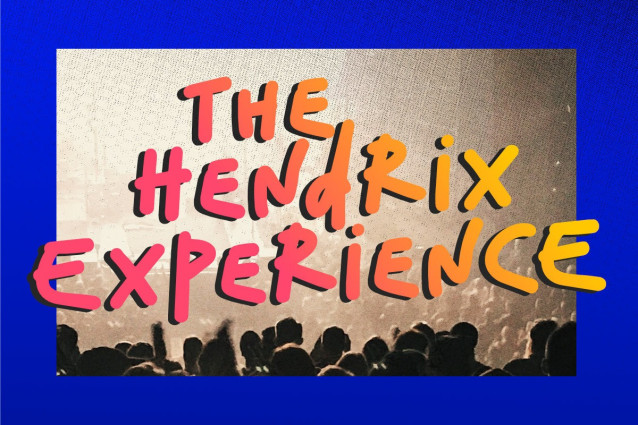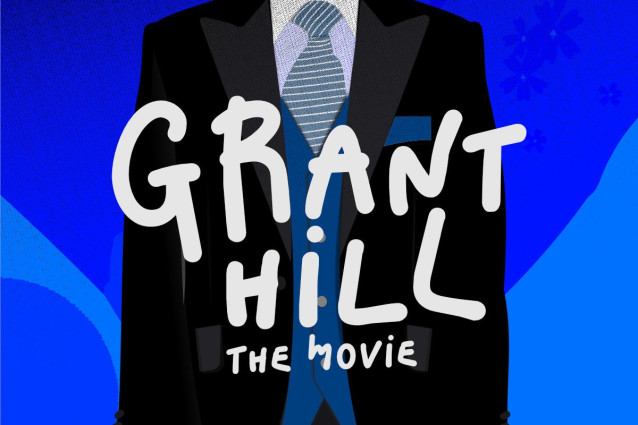
Life Changer Font
Life Changer Font for your brand’s logo or tagline – it will infuse an element of quirkiness while maintaining professionalism. The distinctiveness of each character adds personality to your headlines, making them almost impossible to ignore. Let this humble yet powerful typeface be the catalyst that transforms your designs from ordinary to extraordinary!